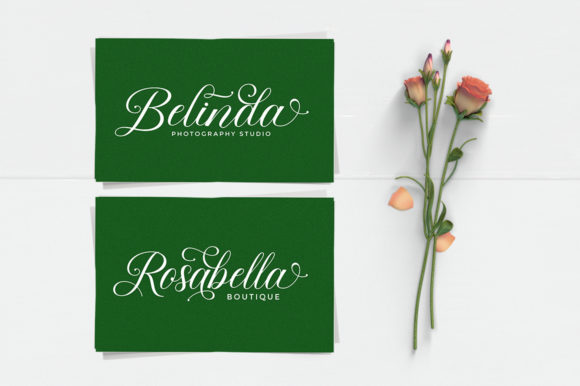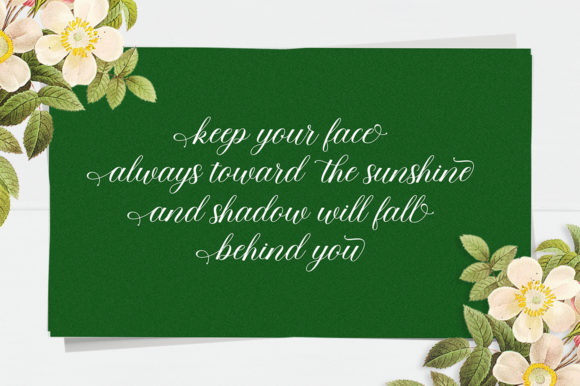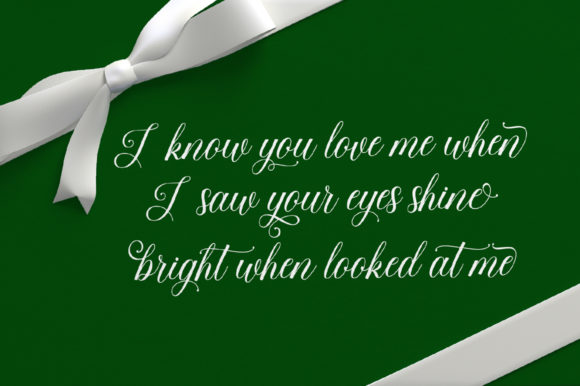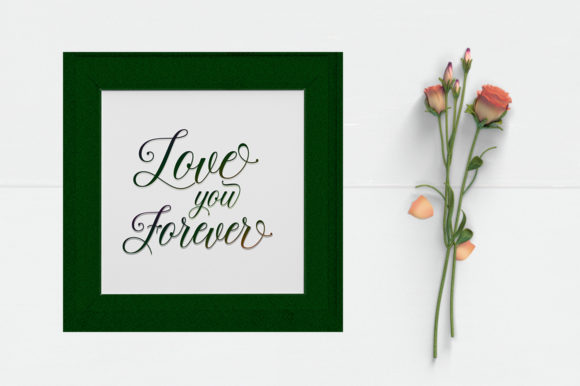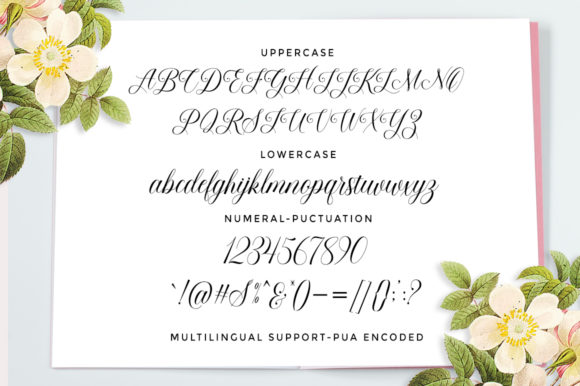
Introducing the Beauty Queen Font: Elevate Your Designs with Elegance
Are you a designer or crafter looking for a font that exudes elegance and sophistication? Look no further than the Beauty Queen Font, a stunning handwritten font that is sure to take your projects to the next level. With its flowing lines and classy calligraphic influences, this font is perfect for anyone seeking to add a touch of luxury and refinement to their work.
What Makes the Beauty Queen Font So Special?
The Beauty Queen Font is a beautifully crafted, elegant, and flowing handwritten font that is designed to make your designs stand out. One of its standout features is its PUA (Private Use Area) encoding, which allows you to access all of the glyphs and swashes with ease. This means that you can effortlessly create stunning text arrangements that are both visually appealing and highly customizable.
Elegant and Contemporary Design
The Beauty Queen Font strikes the perfect balance between classic calligraphy and modern flair. Its elegant, cursive lines evoke a sense of nostalgia and sophistication, while its contemporary feel ensures that your designs stay fresh and relevant. Whether you’re working on a branding project, a wedding invitation, or a craft design, this font is sure to impress.
Key Features of the Beauty Queen Font
- Elegant Handwritten Design: The Beauty Queen Font boasts a beautiful, flowing handwritten design that adds a touch of class to any project.
- PUA Encoded: With PUA encoding, you can easily access all glyphs and swashes, giving you maximum flexibility and creative control.
- Classy Calligraphic Influences: The font’s calligraphic roots give it a sophisticated, high-end feel that’s perfect for luxury brands and designs.
- Contemporary and Fresh: Despite its classic influences, the Beauty Queen Font feels modern and fresh, making it suitable for a wide range of design applications.
Whether you’re a professional designer or a crafty DIY enthusiast, the Beauty Queen Font is an excellent addition to your toolkit. Its versatility and elegance make it suitable for a wide range of projects, including:
- Craft designs and SVG files
- Signs and displays
- Packaging and labels
Tips for Using the Beauty Queen Font